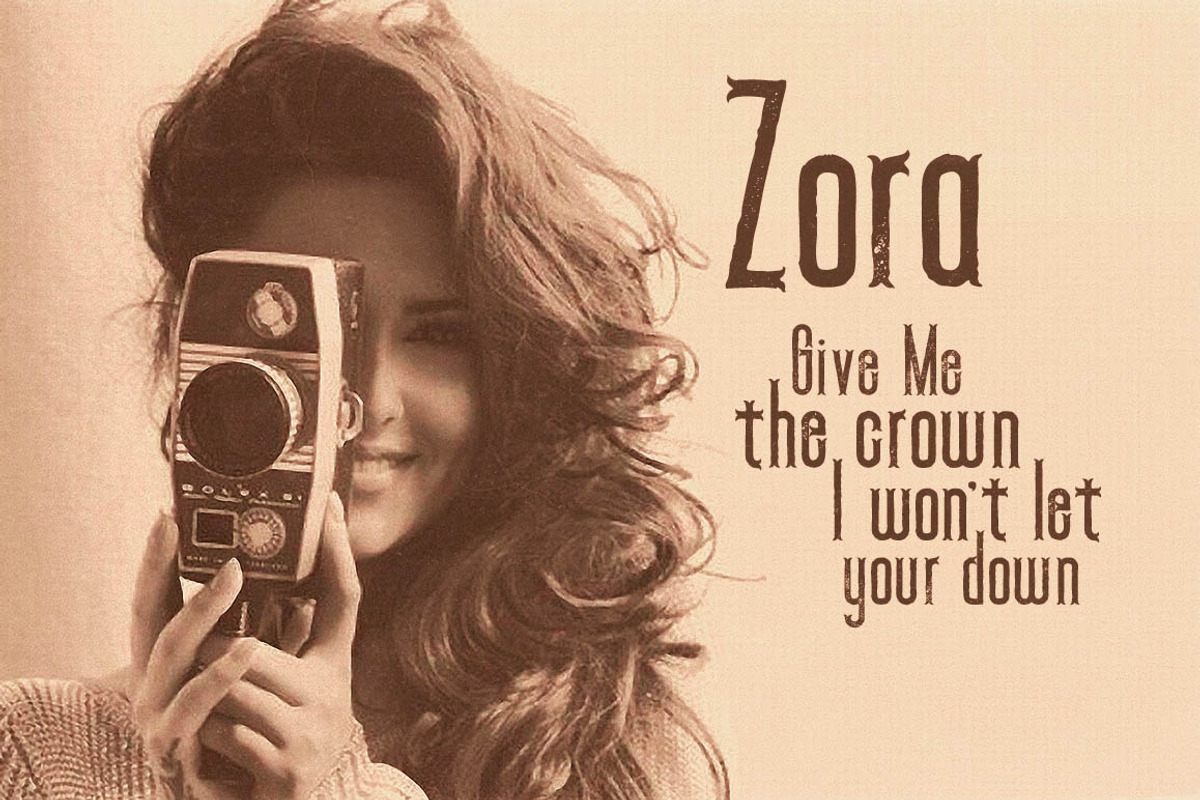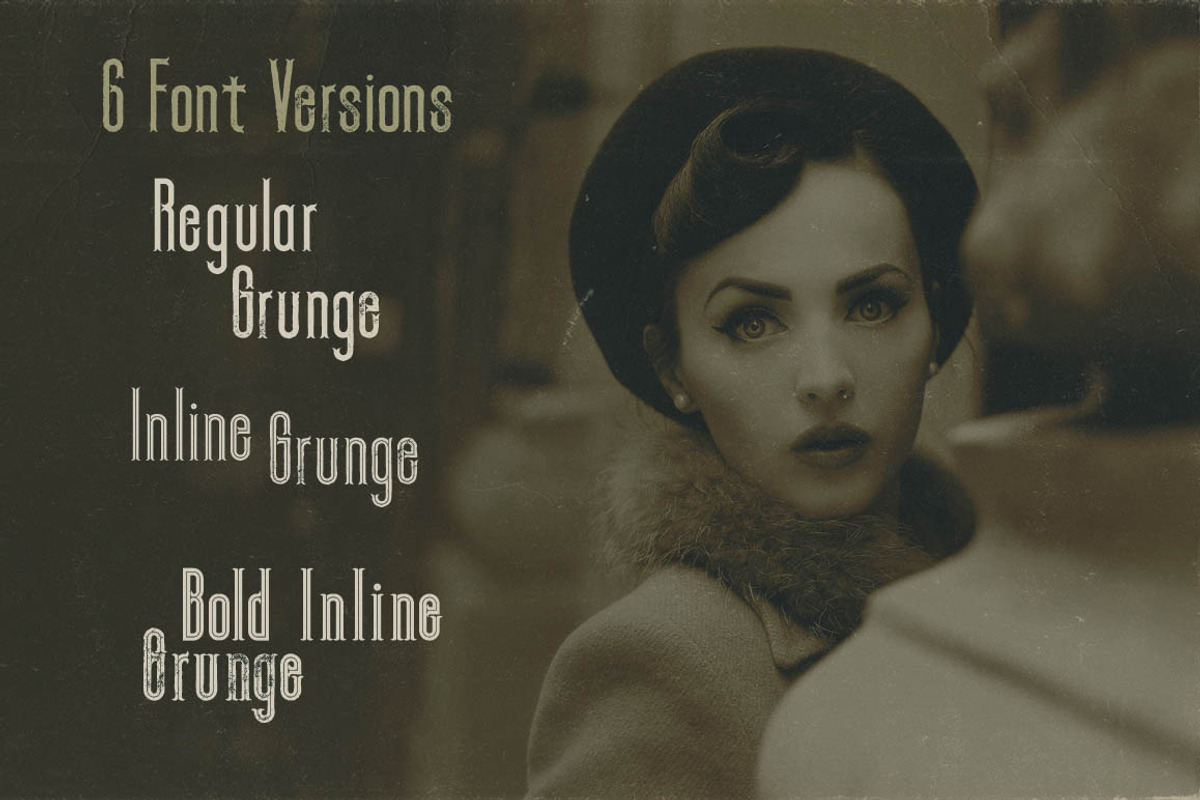
Zora - Vintage Display Font
Zora - Vintage Display Font by JumboDesign is a font selected for branding, posters, packaging, typography.
Why Zora - Vintage Display Font is worth a look
Zora - Vintage Display Font by JumboDesign fits naturally into Branding, posters, packaging, typography.